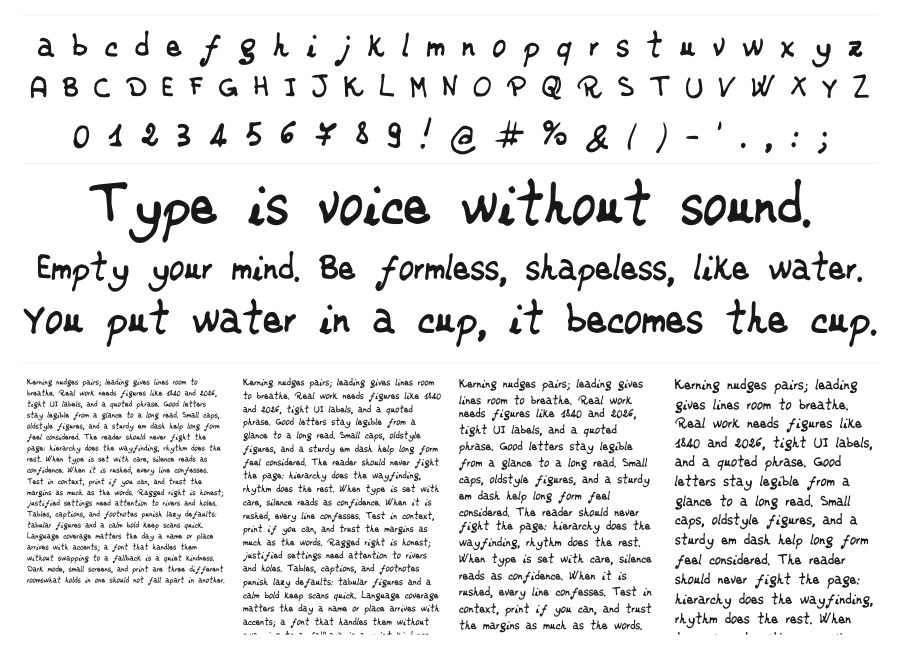
JDRossella
JDRossella is a bold, rounded handwritten face from Jecko Development that carries the confident weight of a thick marker pen. The letterforms feel loose and playful without losing legibility, with soft edges and an informal rhythm that keeps things approachable. A solid choice for headlines, packaging, and branding where you want something that reads as friendly and hand-done.